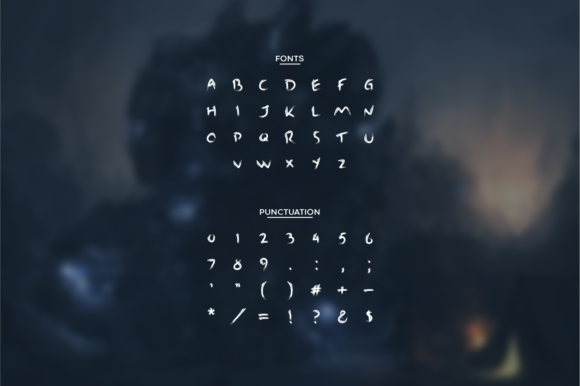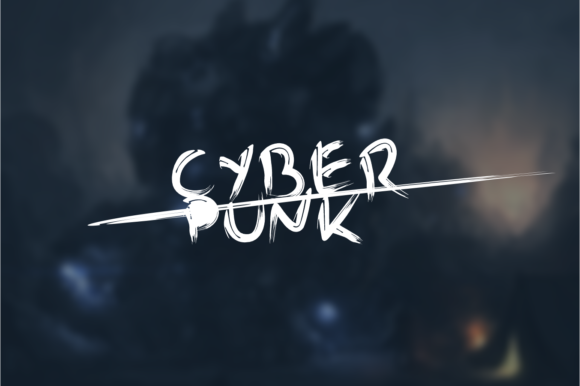
Introduction to Kuaco Font
Have you ever found yourself in the middle of a creative project, desperately searching for the perfect font to bring your idea to life? The struggle is real, but what if you stumbled upon a font that not only captures the essence of your vision but also adds a touch of personality to your design? That’s exactly what the Kuaco Font promises to deliver.
With its dynamic and powerful brushstroke style, Kuaco Font is the ultimate design resource for any creative project. Whether you’re working on branding designs, templates, illustrations, or any other type of design, this font is sure to impress. Its unique handwriting feel makes it a natural fit for any project that requires a personal touch.
- Designed with a modern aesthetic, making it a great choice for contemporary design projects, such as logos, typography, and branding.
Honest Review: Kuaco Font
I recently had the chance to work with the Kuaco Font, and I’m excited to share my thoughts on this versatile design resource. The font offers a unique blend of modern and vintage elements that make it perfect for creative projects that require a touch of sophistication.
Here are some of the things that work well with the Kuaco Font:
- ✨ Unique and modern design
- ✨ Versatile and suitable for various creative projects
- ✨ High quality and crisp typography
Overall, I’m impressed with the Kuaco Font and its potential to elevate creative projects. While it may not be perfect for every design task, it’s an excellent addition to any designer’s toolkit.